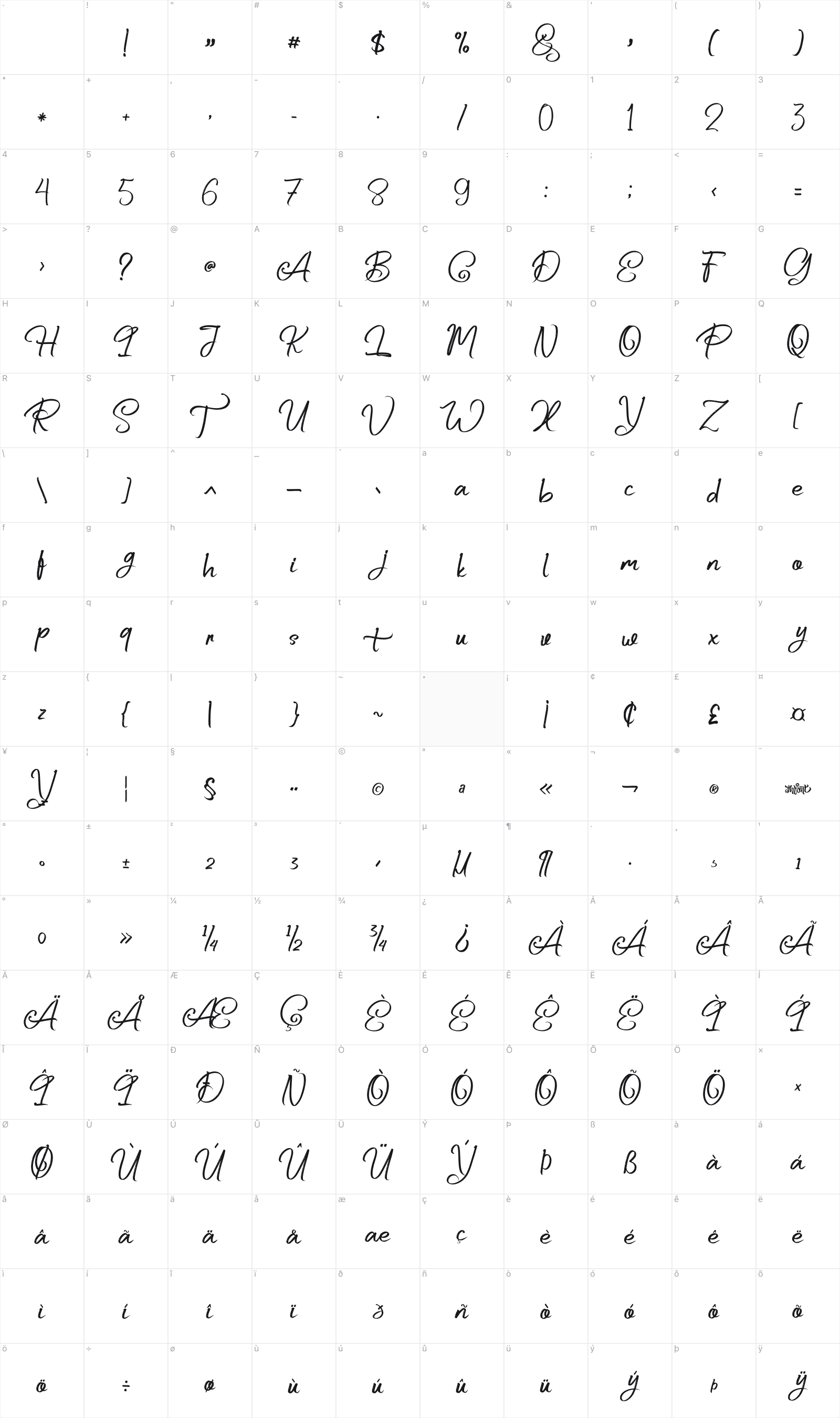
Butter Milky
Butter Milky is a casual brush script with an authentic hand-lettered texture that keeps it from feeling too polished. Flowing connections, looping descenders, and natural ink variation give it genuine warmth. The slightly rough edges make it a good fit for artisan brands, food packaging, and anything that wants a personal, made-by-hand feeling.